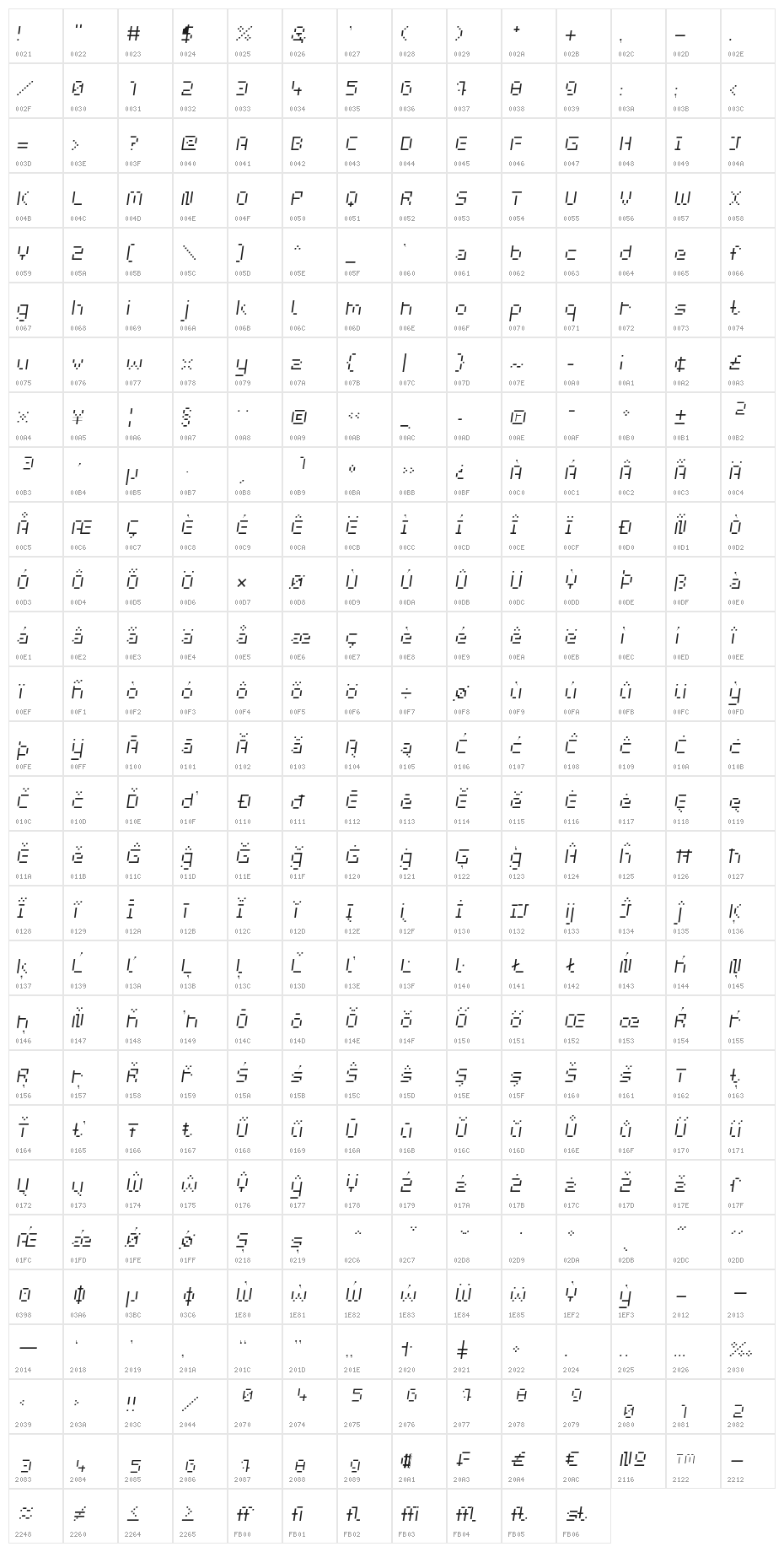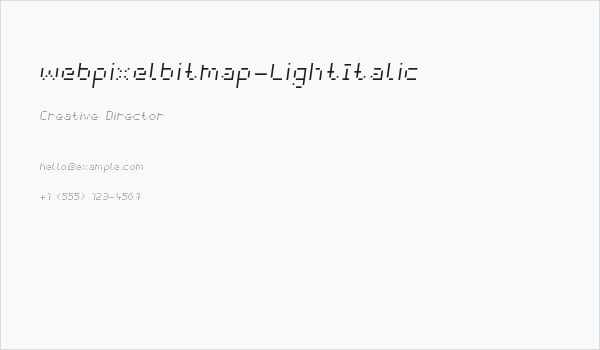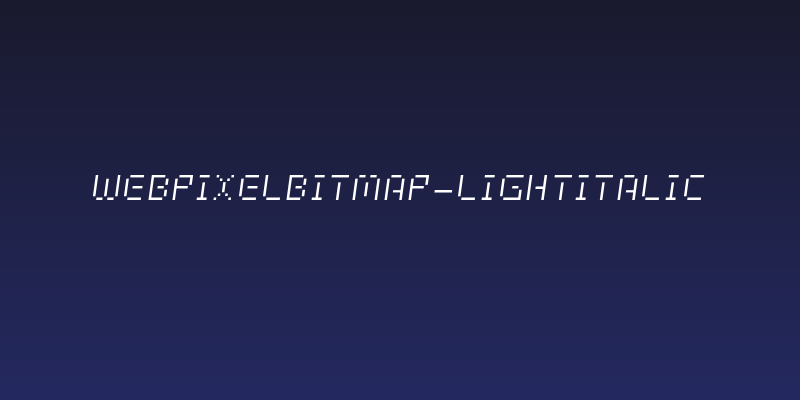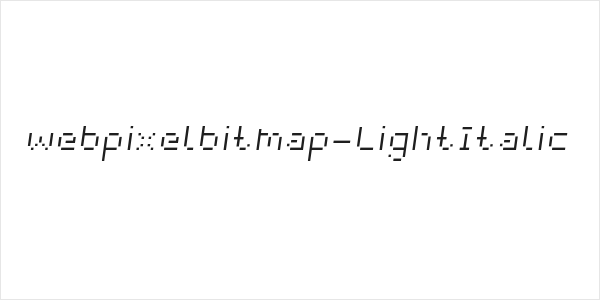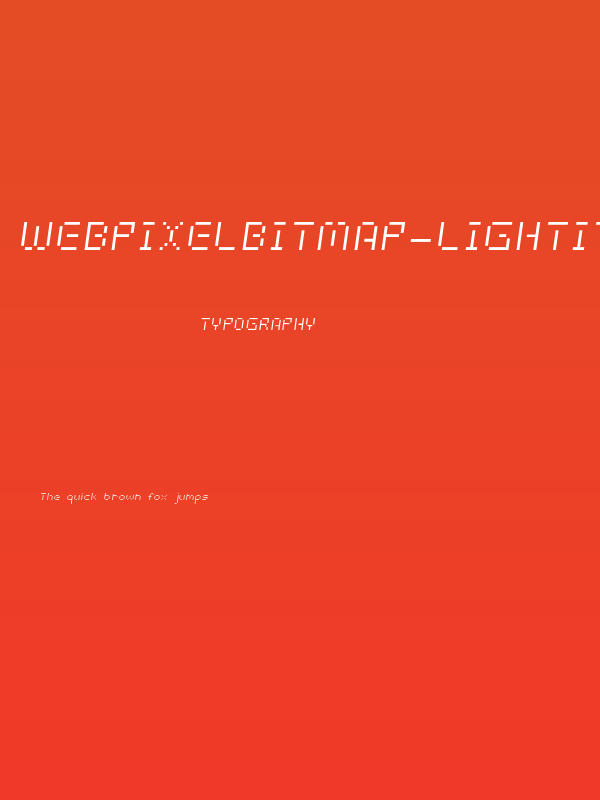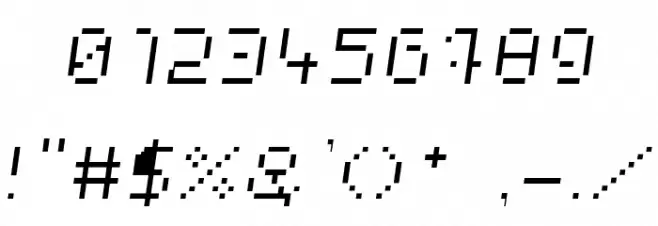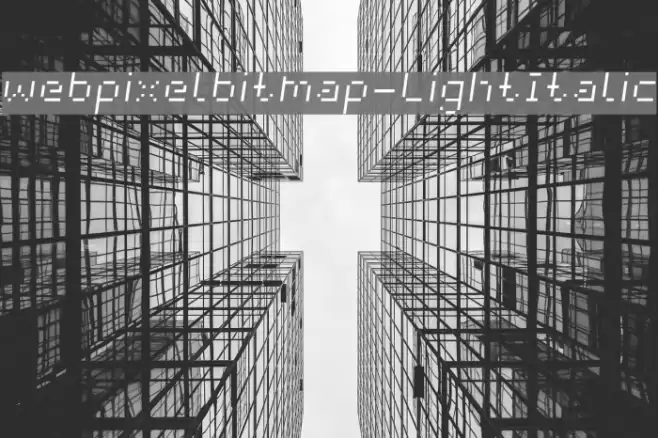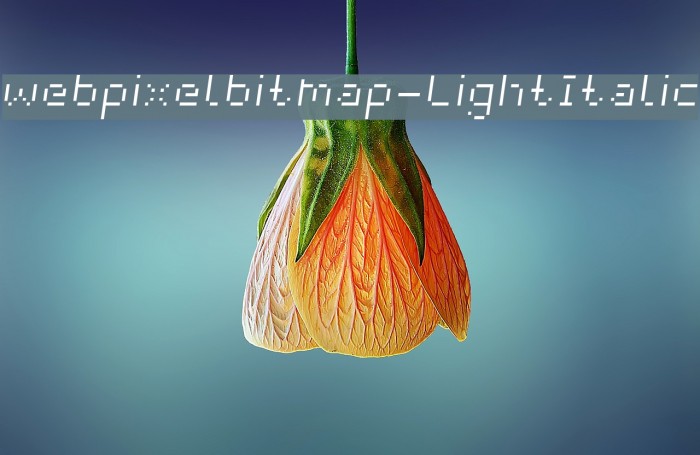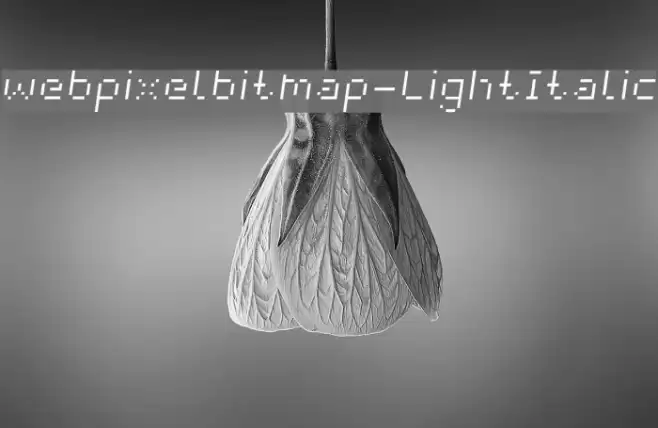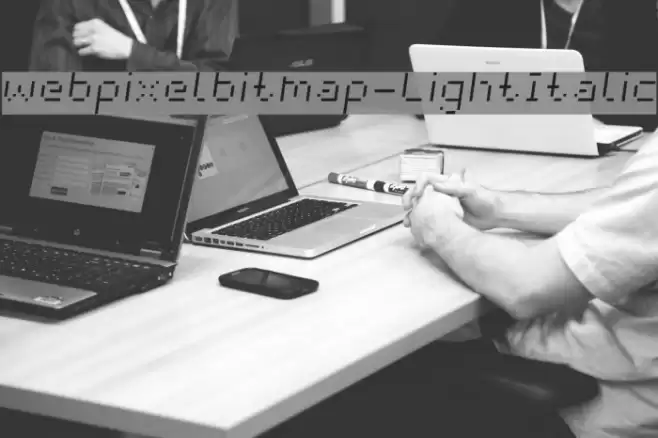
webpixelbitmap-LightItalic Font
| النمط العام | Vintage |
| حالة الاستخدام | Logos, Headlines, Digital Art |
| مشاريع مقترحة | Ideal for projects that aim to capture a vintage digital or gaming theme, such as retro video games, tech-themed posters, or digital art projects. |